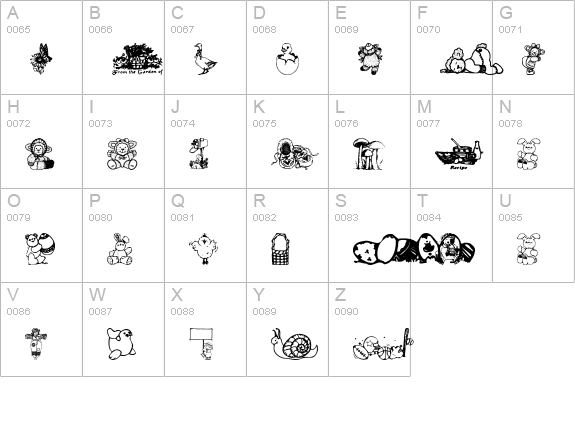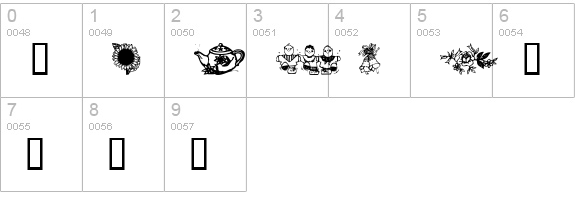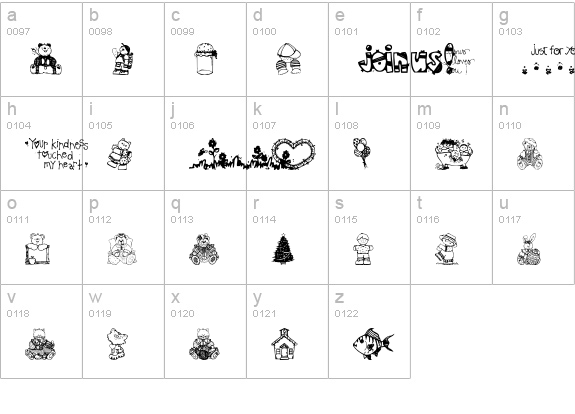
Little cuties Font Details
Introducing Little Cuties Font, a whimsical and charming typeface that is perfect for adding a touch of playfulness to your designs. This delightful font features cute and quirky characters that are sure to bring a smile to anyone's face. With its hand-drawn style and cheerful appearance, Little Cuties Font is ideal for a variety of projects, from greeting cards and invitations to branding and packaging. But the best part? Little Cuties Font is completely free to download at FontsMarket.com! That's right, you can add this adorable font to your collection without spending a dime. So why wait? Add a dose of cuteness to your designs today with Little Cuties Font.